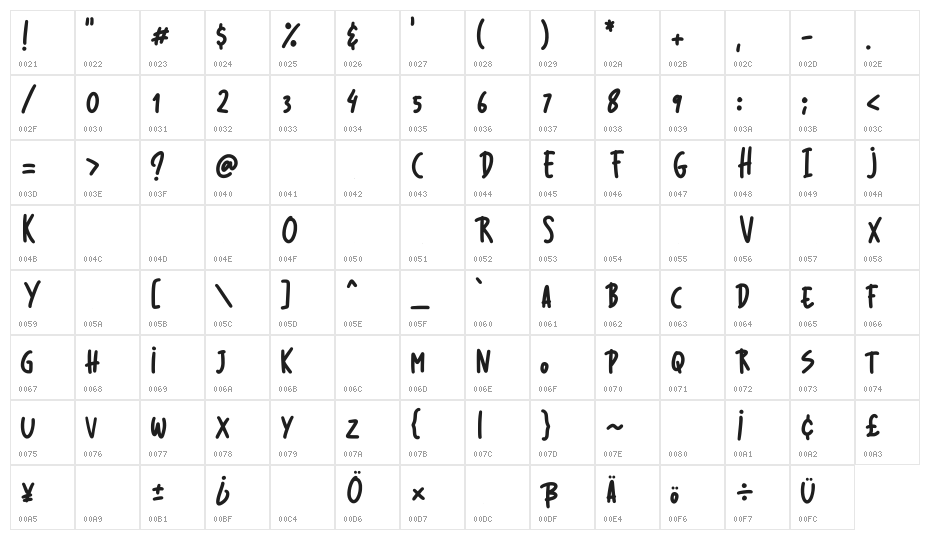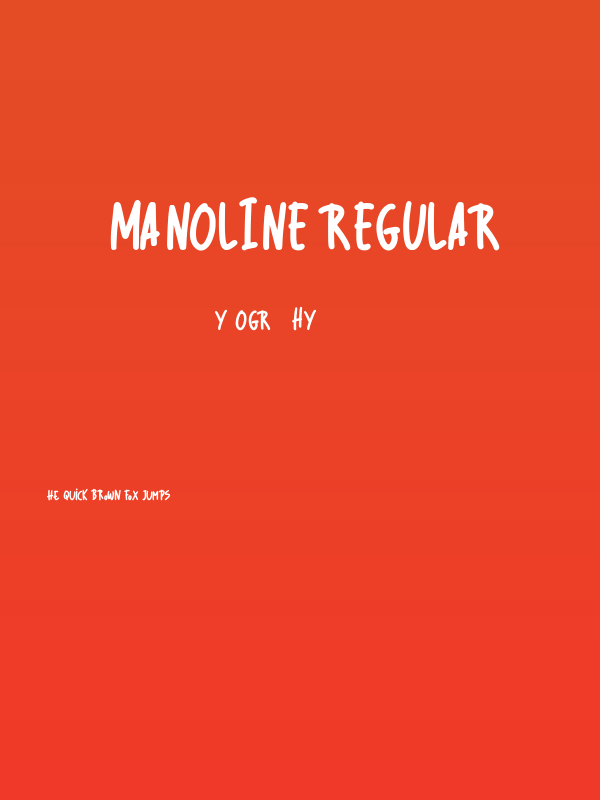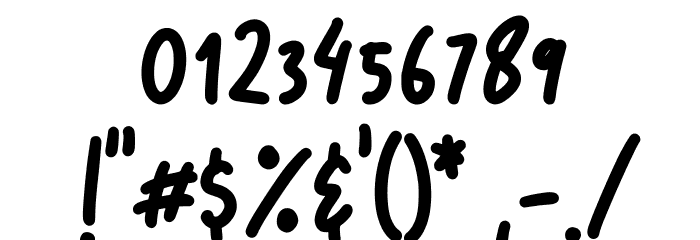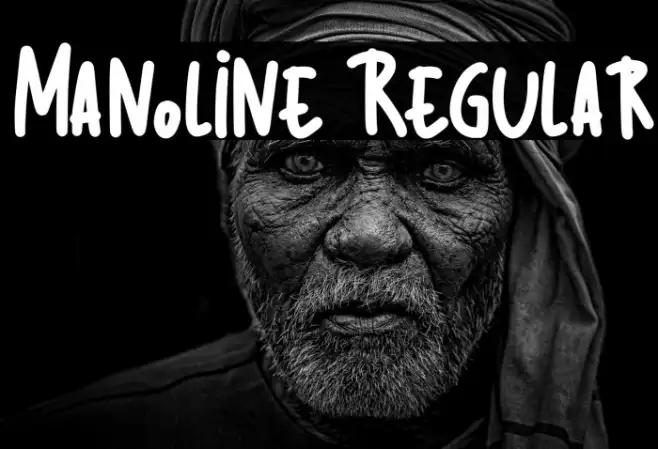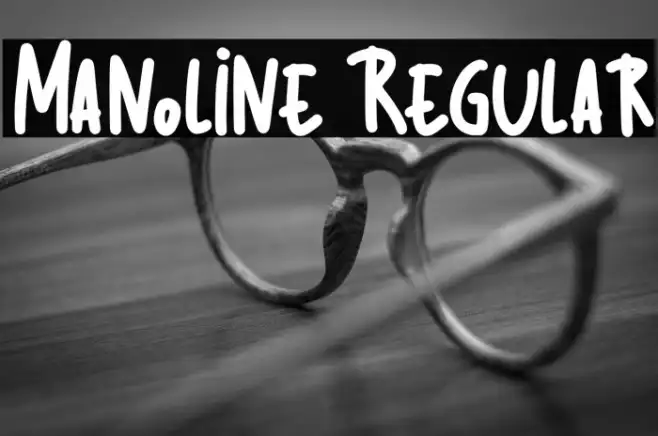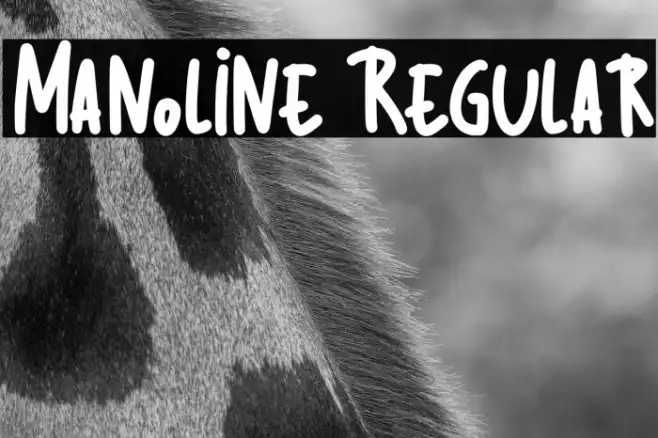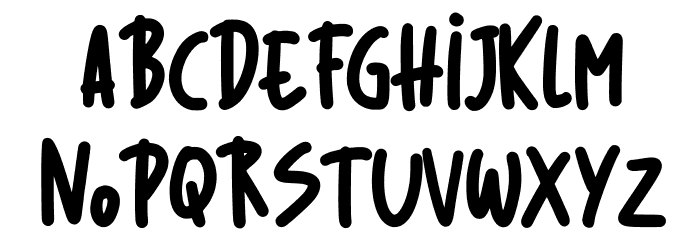
Manoline Regular Font
Manoline Regular Description
This font features a playful and casual handwritten style, characterized by its bold and slightly irregular strokes. The letters have a natural flow, giving a sense of spontaneity and creativity. The uppercase and lowercase letters maintain a consistent style, with rounded edges and a slight slant that adds to its informal appearance. The numerals and special characters are crafted with the same playful touch, making the font versatile for various creative projects. Its overall look is friendly and approachable, suitable for designs that aim to convey warmth and personality.
| Overall Style | Casual and Playful |
| Proposed Projects | Ideal for greeting cards, children's books, playful branding, and social media graphics. |